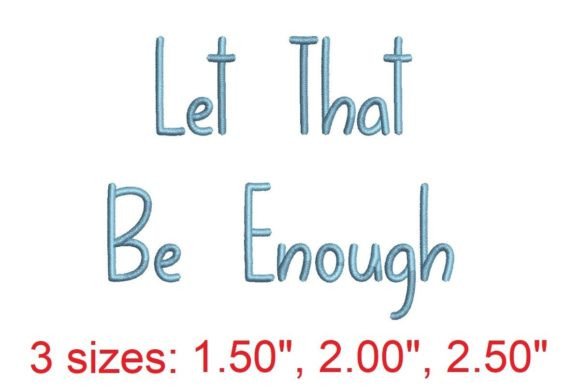
Let That Be Enough Embroidery Font
The Let That Be Enough Embroidery Font is more than just a design—it's an invitation to infuse your creative projects with meaning and artistry. Whether you're a seasoned embroiderer or just starting out, this font offers a unique blend of elegance and simplicity that can elevate everything from personalized gifts to custom apparel. Its clean lines and thoughtful structure make it ideal for both beginners and professionals who want to express their style without sacrificing quality.
Where Can This Font Make a Difference?
This embroidery font is incredibly versatile. It’s not just for monograms or simple lettering. Think about the countless ways you can use it in real-world scenarios:
Who Benefits from This Font?
The Let That Be Enough embroidery font is designed for a wide range of users. Here are some examples of how different people might find value in it:
Craft Enthusiasts: If you love creating handmade items, this font allows you to add a personal touch to your work. It's perfect for those who enjoy experimenting with new techniques and styles.
Small Business Owners: For those running a creative business, this font can be a valuable tool for branding. It helps create a cohesive visual identity that resonates with your target audience.
Parents and Educators: This font can be used to create meaningful gifts for children, such as name tags, book covers, or classroom decorations. It's also great for creating educational materials that are both informative and visually appealing.
Artists and Designers: Whether you're working on a large-scale project or a small detail, this font can enhance your designs with a subtle yet impactful presence.
What Makes This Font Stand Out?
One of the key strengths of the Let That Be Enough embroidery font is its balance between simplicity and intricacy. It’s designed to be easy to read while still offering enough detail to feel artistic. This makes it suitable for a variety of applications where clarity and style are equally important.
Considerations Before You Begin
While the Let That Be Enough embroidery font is a powerful tool, there are a few things to keep in mind before diving in:
Real-World Applications and Observations
Many users have shared how the Let That Be Enough embroidery font has transformed their creative projects. One popular use case is in creating custom jewelry tags. By adding a simple yet elegant phrase, these tags add a personal touch to each piece, making them more meaningful and memorable.
Others have used the font to create decorative elements for quilting or scrapbooking. The ability to mix and match letters allows for endless possibilities, whether you're designing a single word or a full sentence.
For those interested in digital design, this font can be integrated into graphic design software to create mock-ups or templates. This is especially useful for those who want to visualize how their embroidery will look before committing to the actual project.
Limitations and Potential Challenges
While the Let That Be Enough embroidery font is highly versatile, it does have a few limitations. For instance, it may not be ideal for very large-scale projects due to the complexity of some characters. Additionally, certain intricate details may not translate well when scaled up, so it's important to test your designs on smaller pieces first.